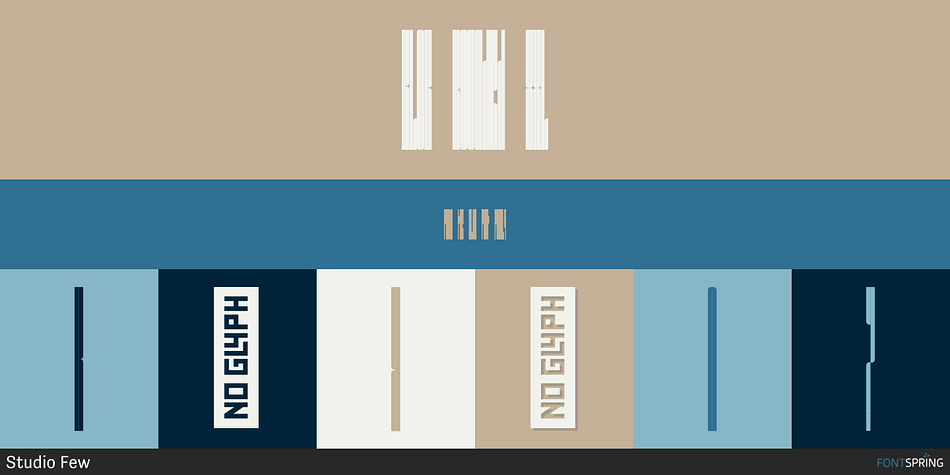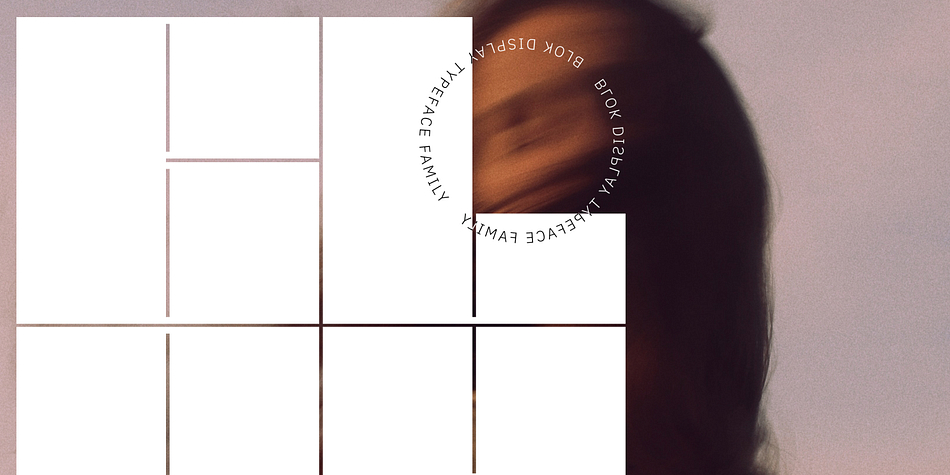
BLOK ROUNDED XXL
Blok is a display sans and novelty font family. This typeface has thirteen styles and was published by Studio Few.
Built on a square grid, Blok’s variable axis conforms to your canvas. With pre-defined weights ranging from 2x1, through to 1x16, Blok is as flexible as it is structured.
Character Set: A-Z, Period & Exclamation Mark
Weights: 6 Normal & 6 Rounded
Style XXL